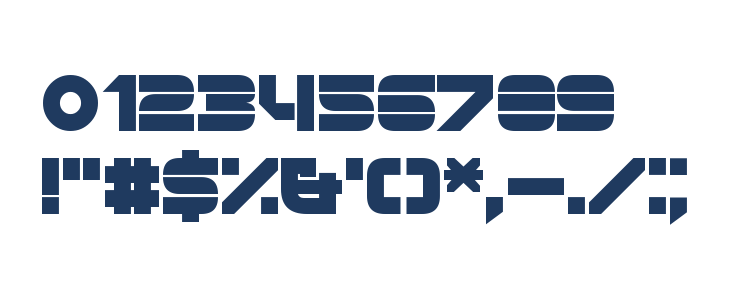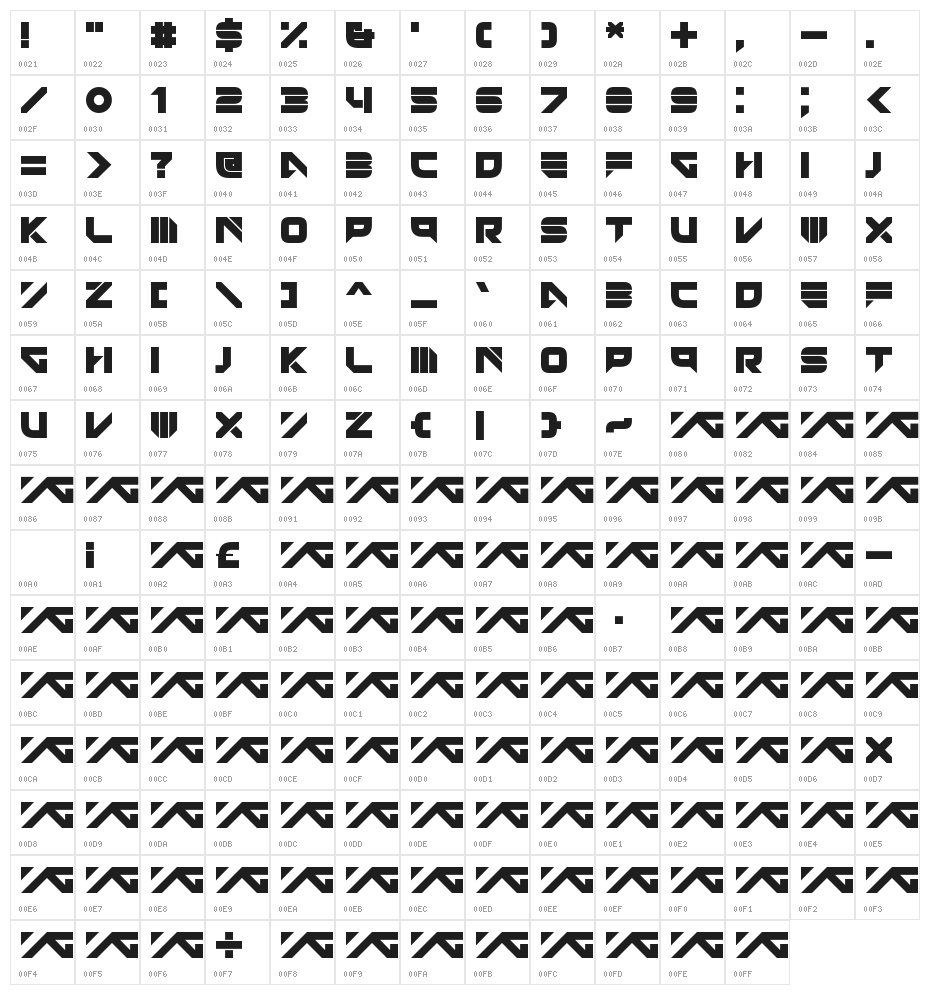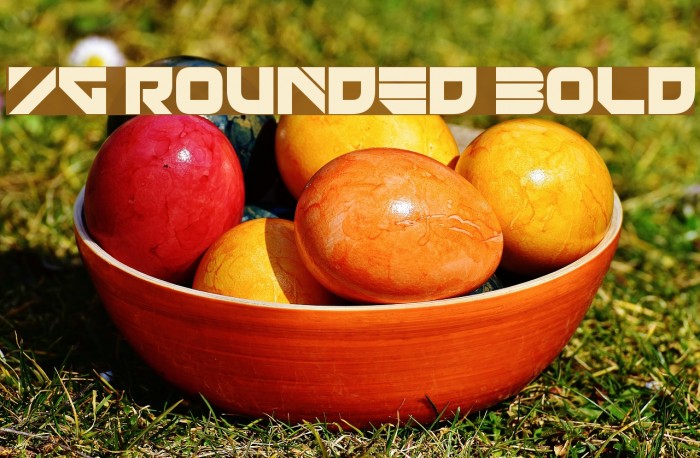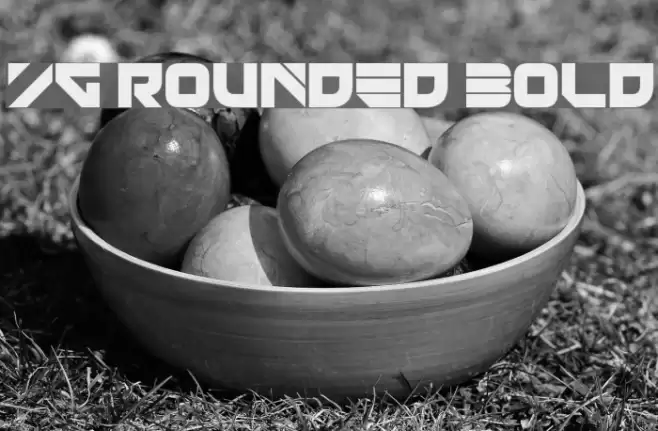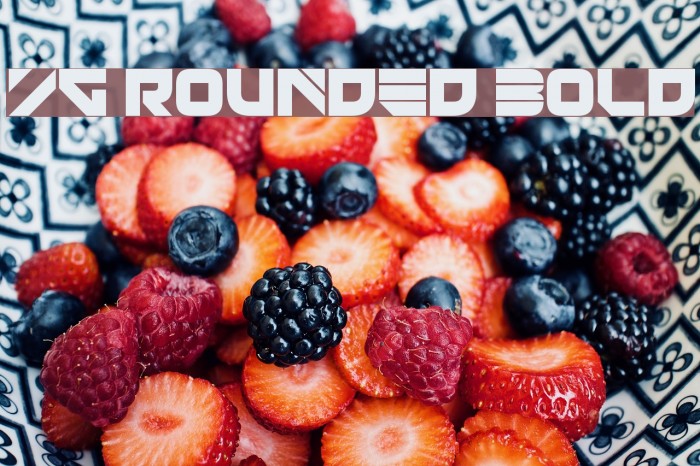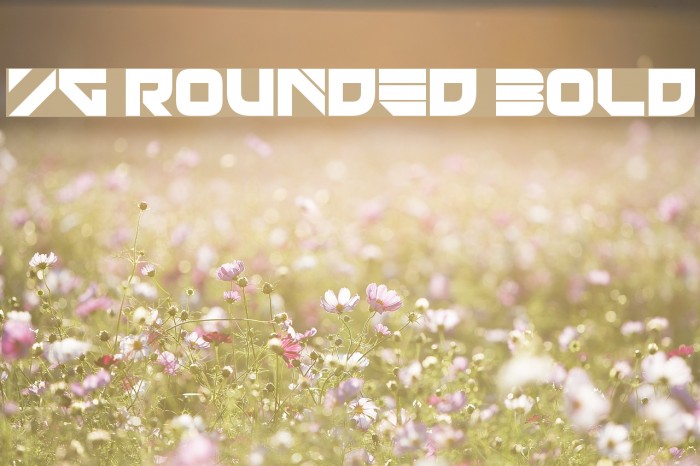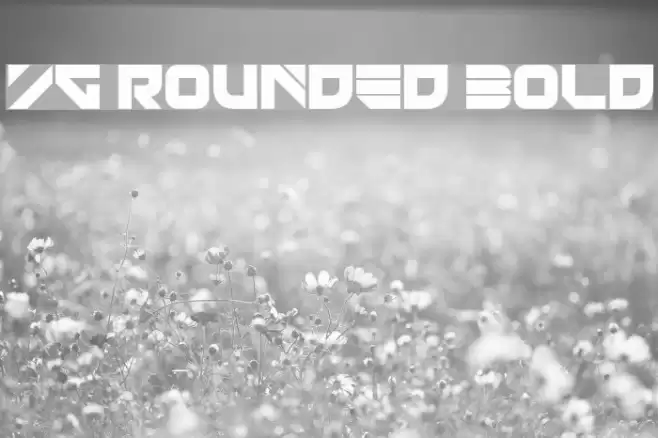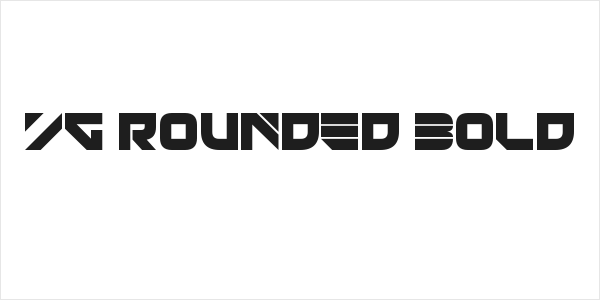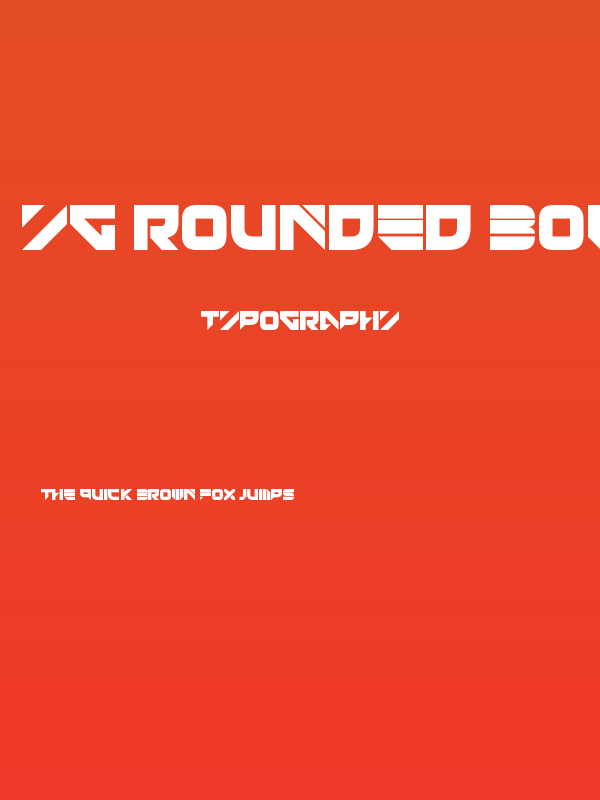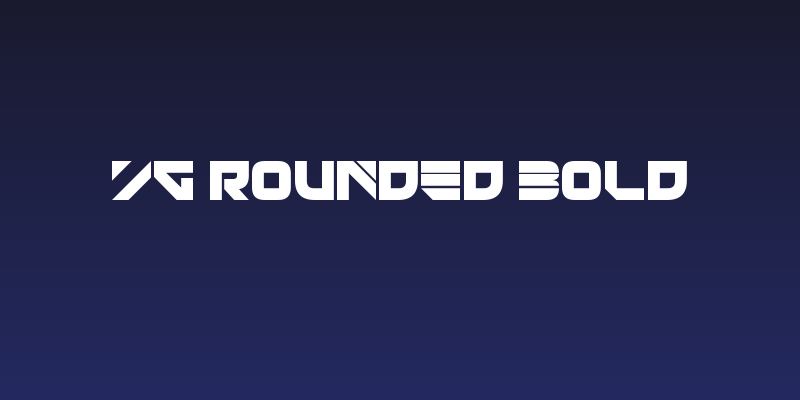
YG Rounded Bold Font
YG Rounded Bold Description
This font features a bold and geometric design with a futuristic flair. The characters are constructed with thick, uniform strokes and sharp angles, creating a sense of strength and modernity. The design incorporates unique cutouts and angular shapes, giving it a distinctive and edgy appearance. The overall look is both striking and memorable, making it ideal for projects that require a bold statement. The font maintains a consistent weight throughout, ensuring readability while adding a touch of sophistication.
| Proposed Projects | Ideal for branding, posters, headlines, and any project that requires a modern and bold aesthetic. |